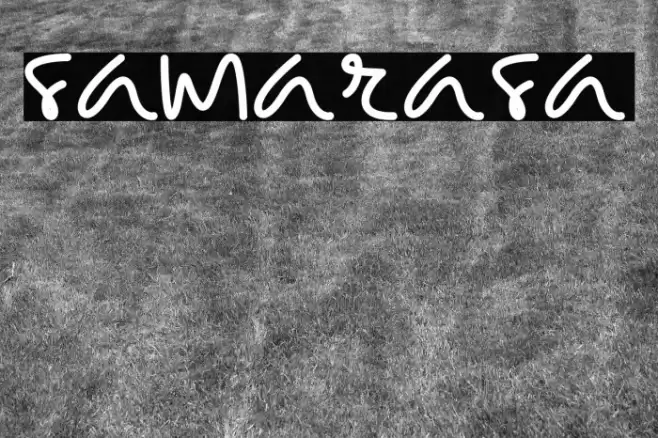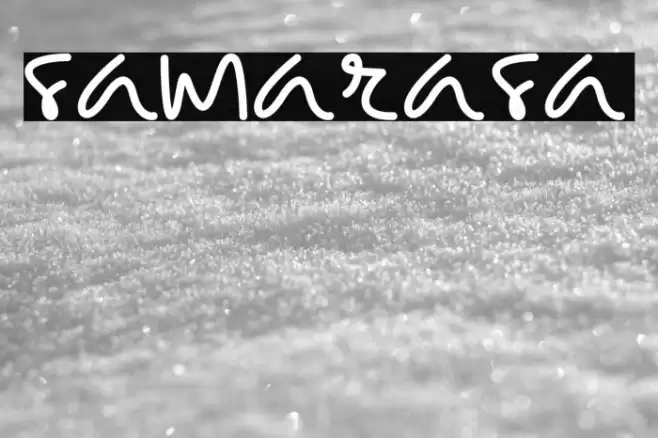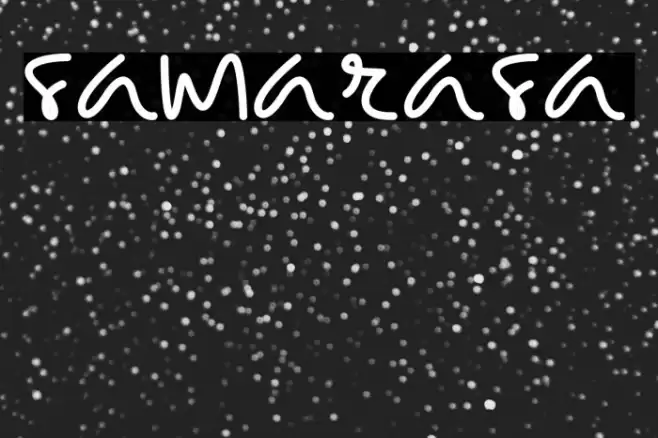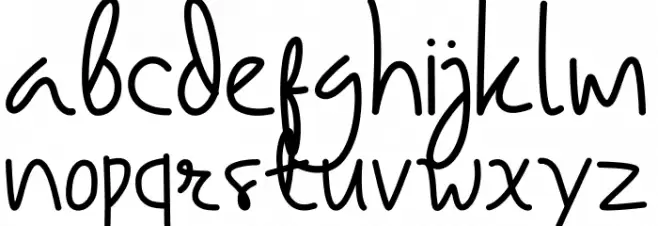
samarasa Font
samarasa Description
This font features a playful and whimsical handwritten style, characterized by its fluid and organic letterforms. The letters have a casual, informal appearance, with a slight slant that adds to its dynamic feel. The strokes are consistent in width, providing a uniform look across all characters. The font includes unique details such as loops and curls, particularly noticeable in letters like 'g', 'j', and 'y'. This adds a touch of personality and charm. The overall design is approachable and friendly, making it suitable for projects that require a personal or creative touch.
A playful handwritten font with fluid, organic letterforms and consistent stroke width from Uncategorized fonts.
- Proposed Projects: Ideal for greeting cards, invitations, personal branding, and creative projects that benefit from a personal touch.
- Overall Style: Playful, Whimsical
- Use Case: Headlines, Invitations, Personal Branding